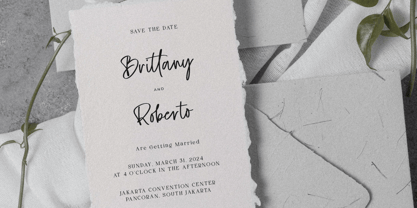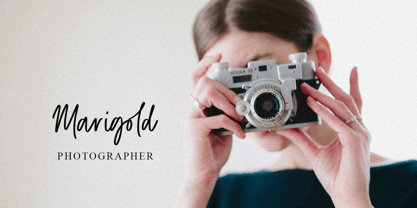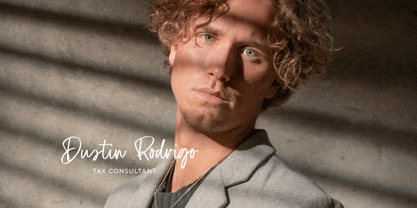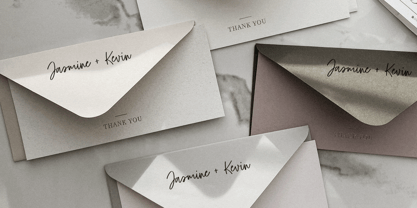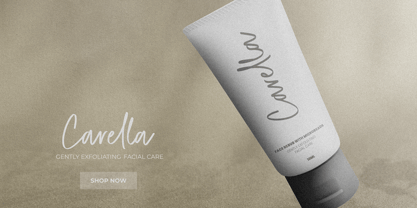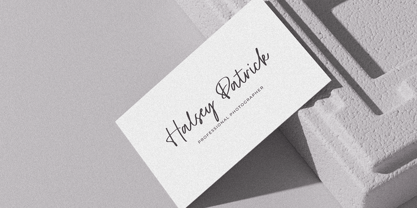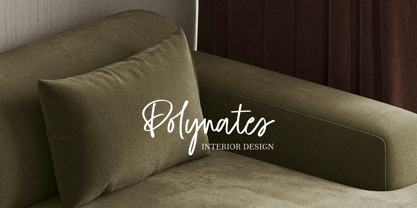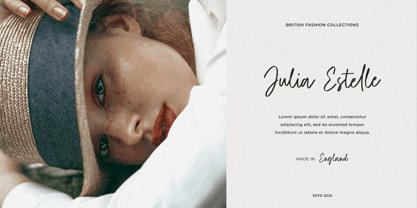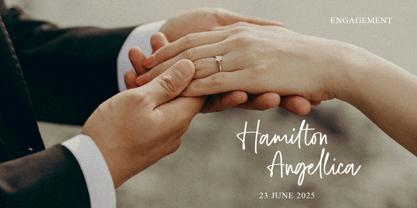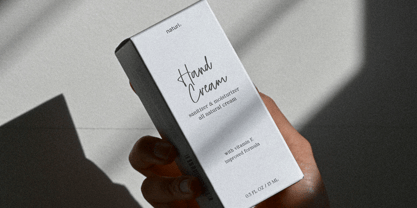
Dellmonte
by Heinzel Std
The Dellmonte Font Family was designed by Nofi Sofyan Hadi and published by Heinzel Std. Dellmonte contains 1 styles. More about this family
Dellmonte is a casual script font that blends relaxed charm with handwritten elegance. With its smooth curves and flowing strokes, Dellmonte brings a friendly and approachable vibe to your designs. Ideal for quotes, branding, packaging, and social media posts, this font captures the effortless beauty of modern script with a personal touch. Let Dellmonte add warmth and style to your creative projects.
Designers: Nofi Sofyan Hadi
Foundry: Heinzel Std